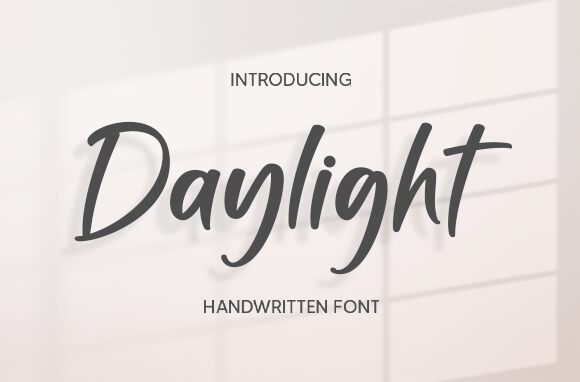
Daylight
Daylight is a stunning new font from Graphix Line Studio that exudes a charming and handwritten feel. Its semi-light weight offers a perfect balance between thin and bold, making it suitable for a wide range of projects. Whether you're working on invitations, logos, branding, or social media posts, Daylight's classic yet modern style will make your designs stand out. This font is perfect for adding a touch of elegance to your wedding invitations or creating an eye-catching logo for your business. With its natural flow and versatility, Daylight will quickly become your go-to choice for any project that demands creativity and sophistication.